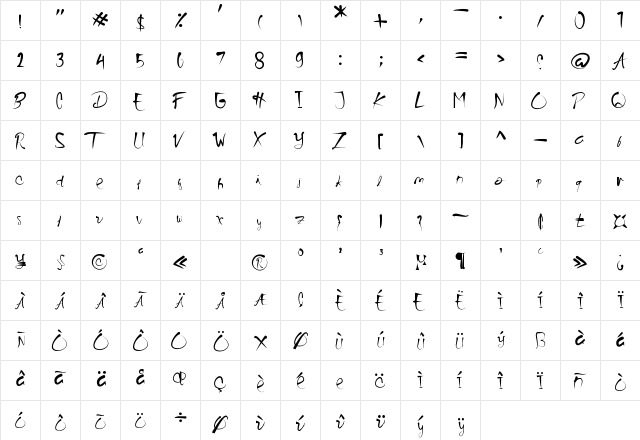
Kaidomaru Regular
| Foundry | JETSMAX |
| Designer | Khairil Anwar |
Design Context for Kaidomaru Typeface
Kaidomaru is a composed and adaptable typeface that performs quietly and consistently across a wide range of design contexts.